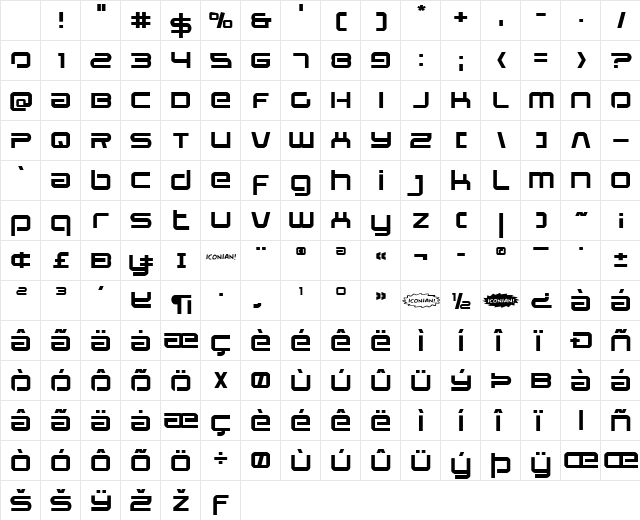
Complete Star Eagle Expanded glyph index. Displaying only characters natively supported by Star Eagle Expanded font.
Star Eagle is a composed and adaptable typeface that performs quietly and consistently across a wide range of design contexts.